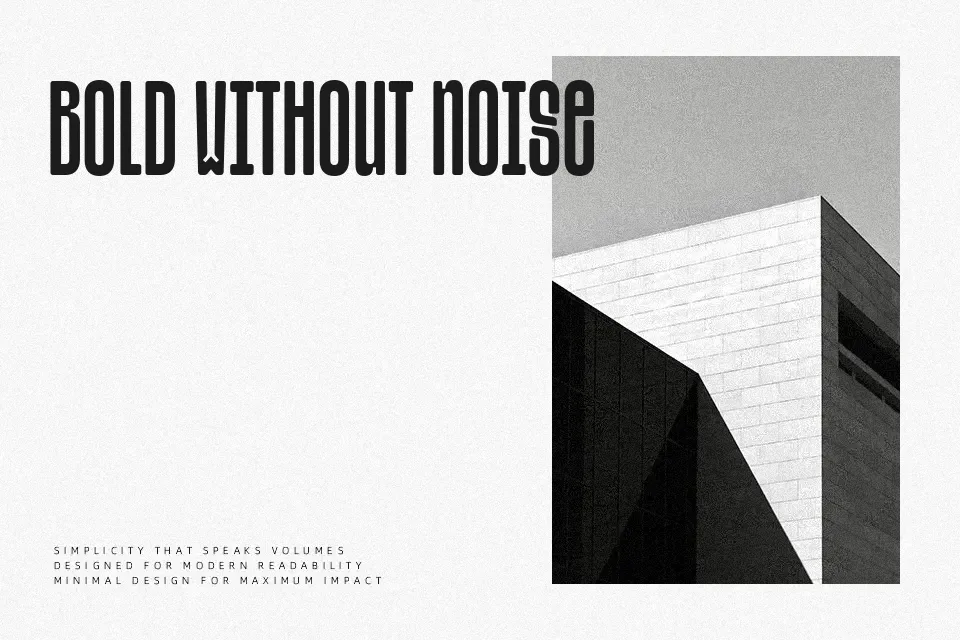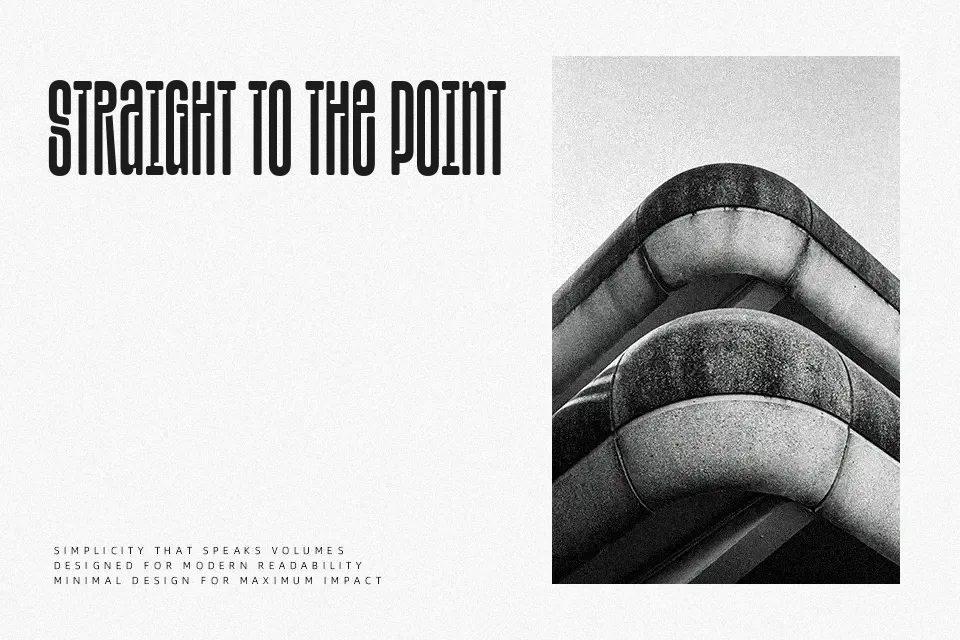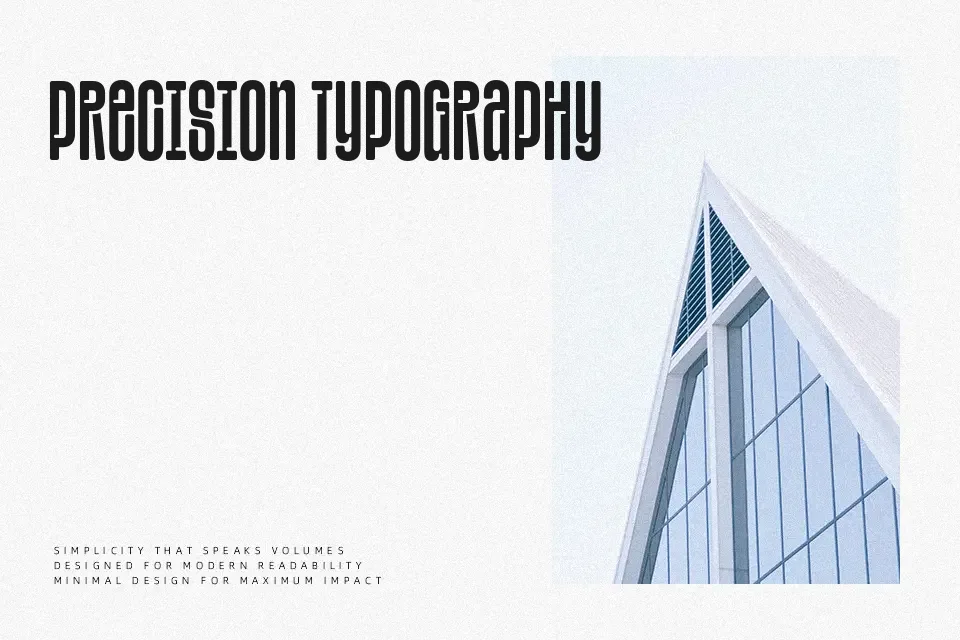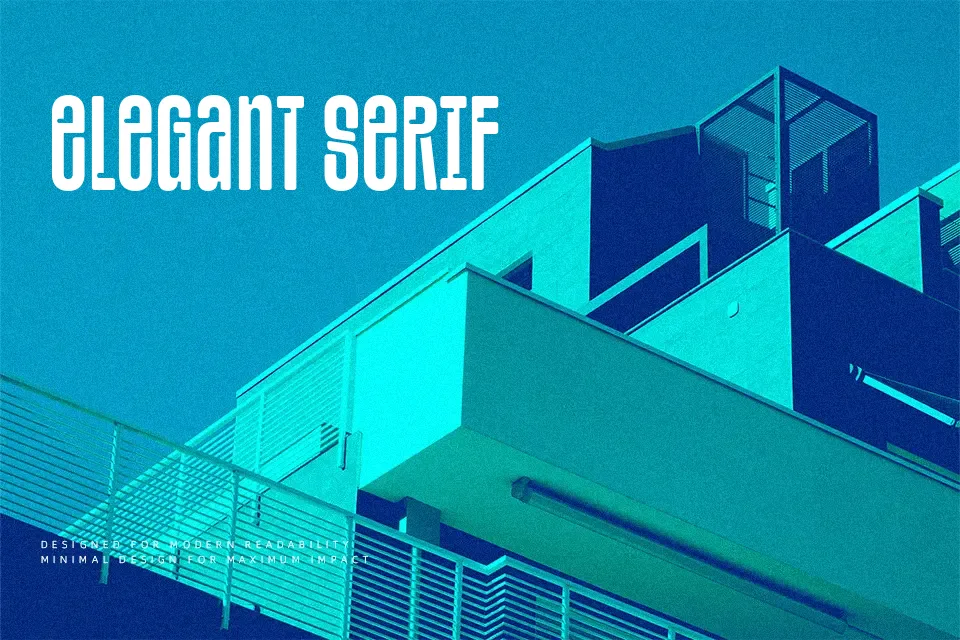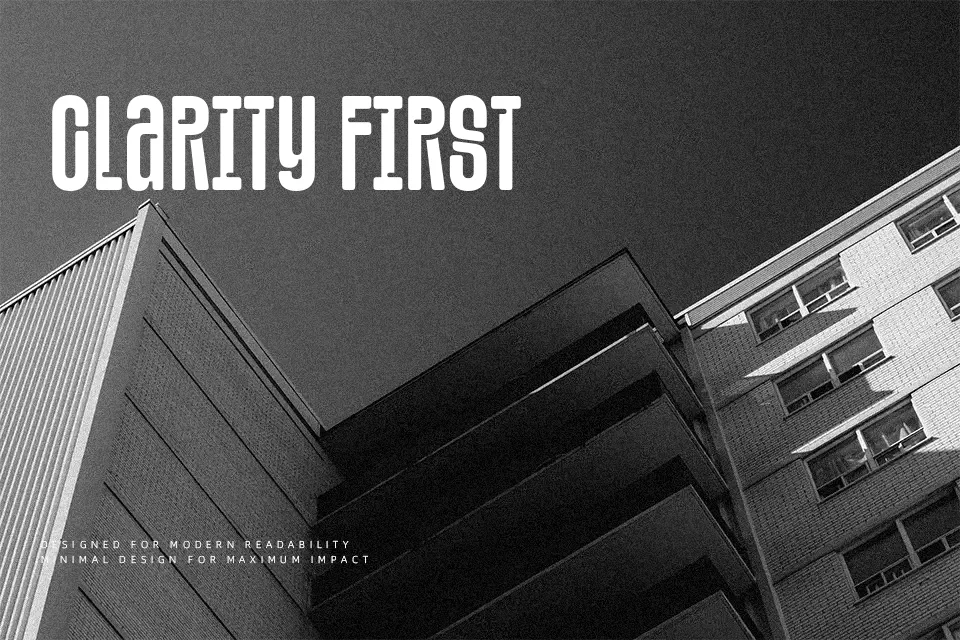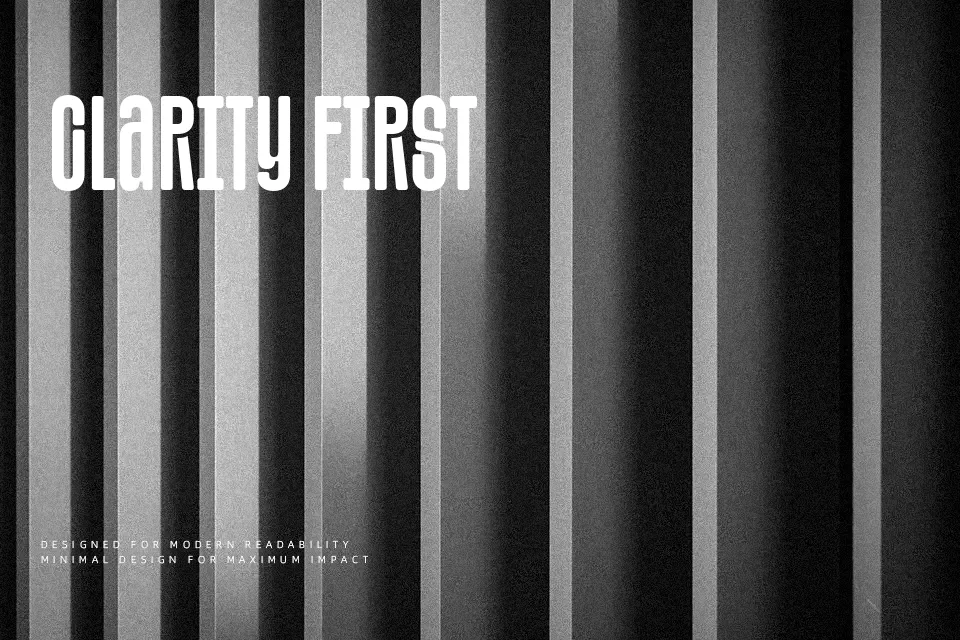
SFT Sushka Font
SFT Sushka Font features tall, condensed letterforms defined by uniform stroke weights, tight horizontal spacing, and subtly rounded inner joints. The modular structure pairs clean vertical stems with softened terminal curves, creating a warm, approachable aesthetic suited for artisan packaging, creative logo design, and high-impact editorial titles. Because of the compact character width and snug kerning, the typeface delivers excellent visual punch when set at large scale. However, the narrow counter spaces reduce clarity when scaled down to small sizes, making it less suitable for continuous body paragraphs or dense legal copy where conventional proportions are essential.
food packaging and snack labels
vibrant poster headlines
cafe and bakery branding
playful social media graphics
small body text in mobile apps
long continuous reading paragraphs
formal legal documents
dense technical tables
Perfect for advertising, headline, and logo, with a creative and condensed style.